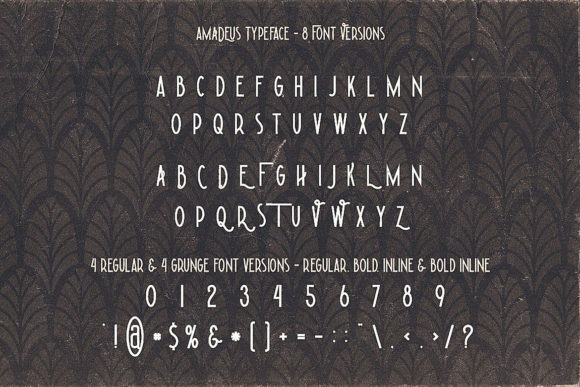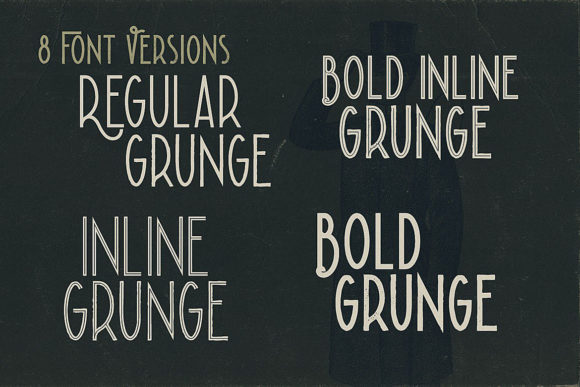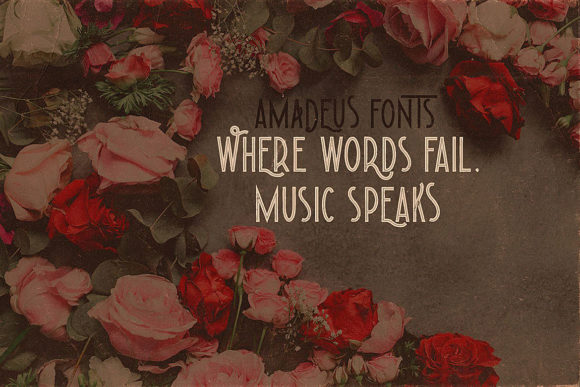
Amadeus Font
The Amadeus is an unique and vintage display font. It includes 8 unique styles which gives you the opportunity to create multiple designs with just this one download.